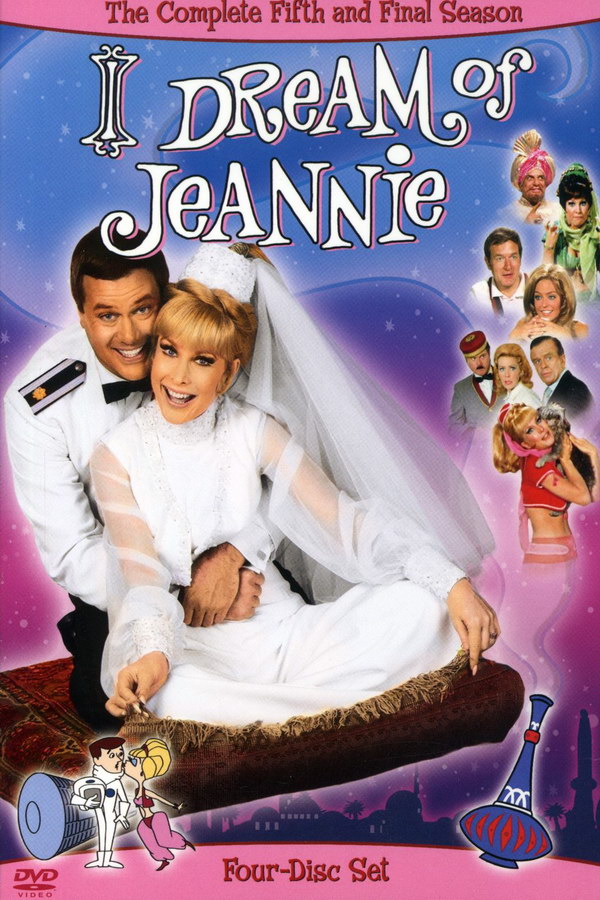
I Dream of Jeannie Font
FamilyI Dream of Jeannie is a classic 60s sitcom that follows the adventures of astronaut Tony Nelson and his genie Jeannie.
The ''I Dream of Jeannie'' lettering on the cover is quite alike a font known as Jeannie, which was created by Franklin J. Sell. This font is exclusive to uppercase letters and a few punctuation marks. It is available for free download in the Fonts Used Section.